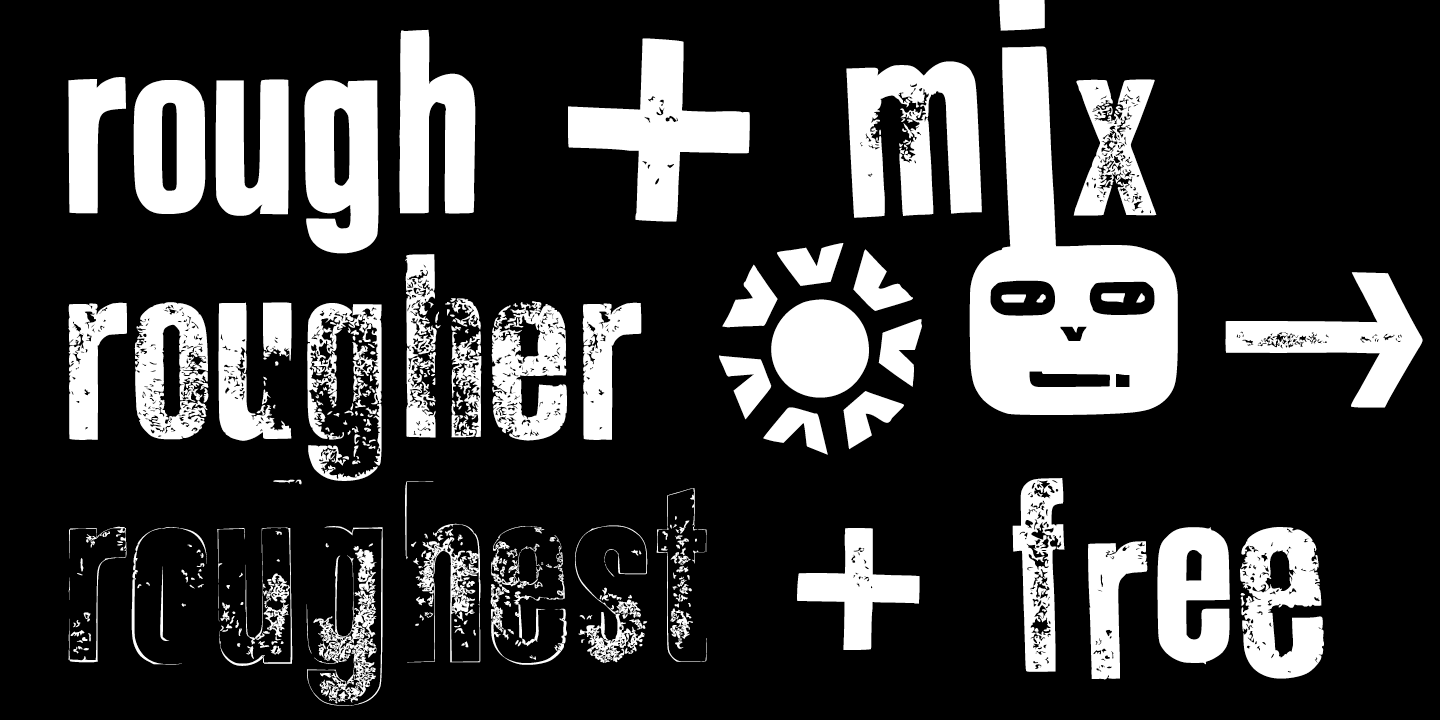
The typeface Klein Rough & Gemein(e) is designed from 2020 for the font foundry Typo Graphic Design by Inga Luft and Manuel Viergutz.
The display font based on original old german rubber stamps and is inspired in the past and present.
4 font-styles (Rough, Rougher, Roughest, Rough Mix) + 1 icon-style with 432 glyphs (Adobe Latin 2) incl. 100+ decorative extras like icons, arrows, dingbats, emojis, symbols, geometric shapes, catchwords, decorative ligatures (type the word #LOVE for ❤ or #SMILE for ☺ as OpenType-Feature dlig) and stylistic alternates (7 stylistic sets).
For use in logos, magazines, posters, advertisement plus as webfont for decorative headlines. The font works best for display size.
■ Font Name: Klein Rough & Gemein(e)
■ Font Weights: 4 + 1 (Icons) + DEMO (with reduced glyph-set)
■ Font Category: Display for headline size
■ Glyph Set: 432 glyphs (Adobe Latin 2) incl. 100+ decorative extras like dingbats
■ Design Date: 2020
■ Type Designer: Manuel Viergutz und Inga Luft